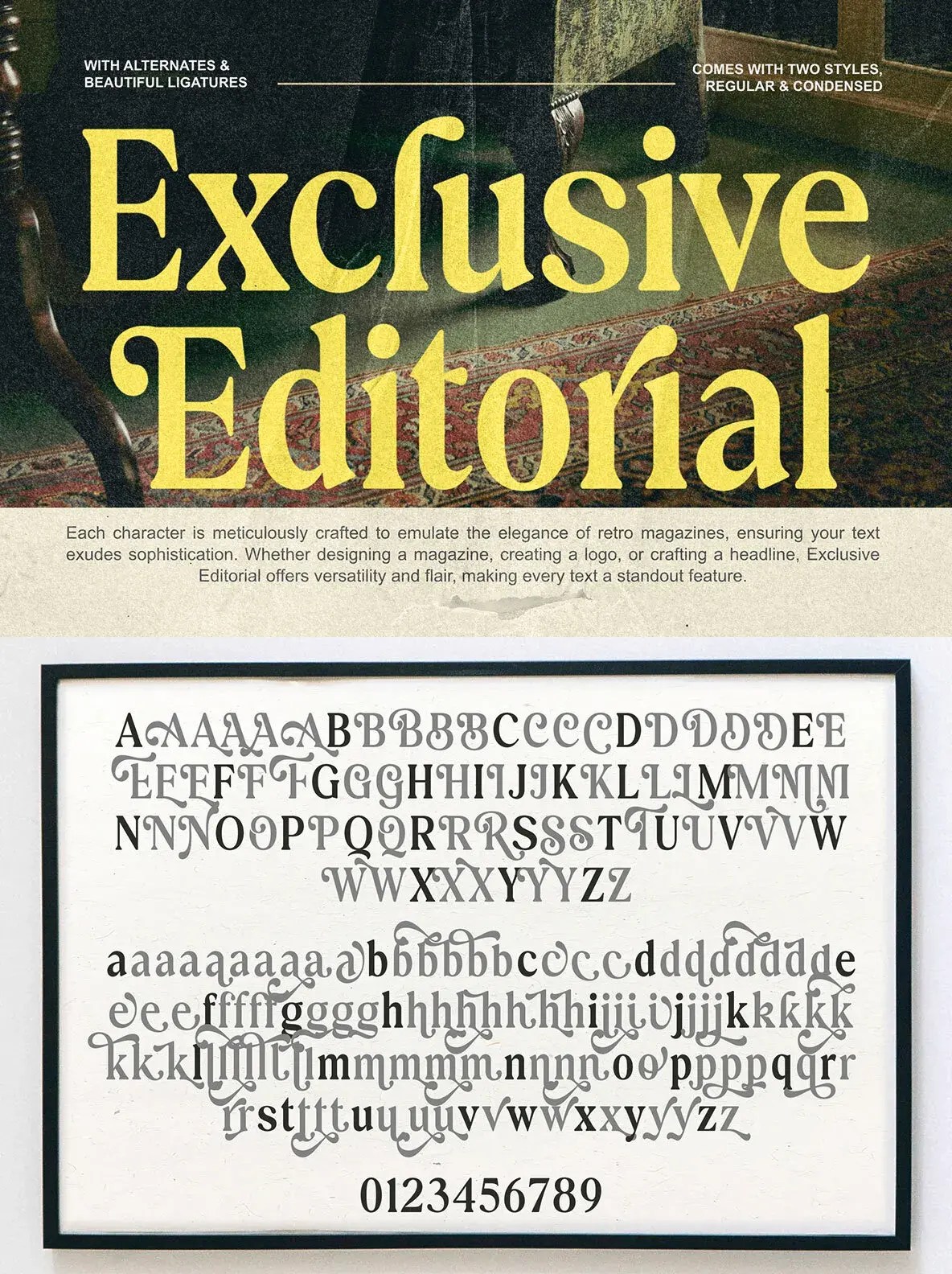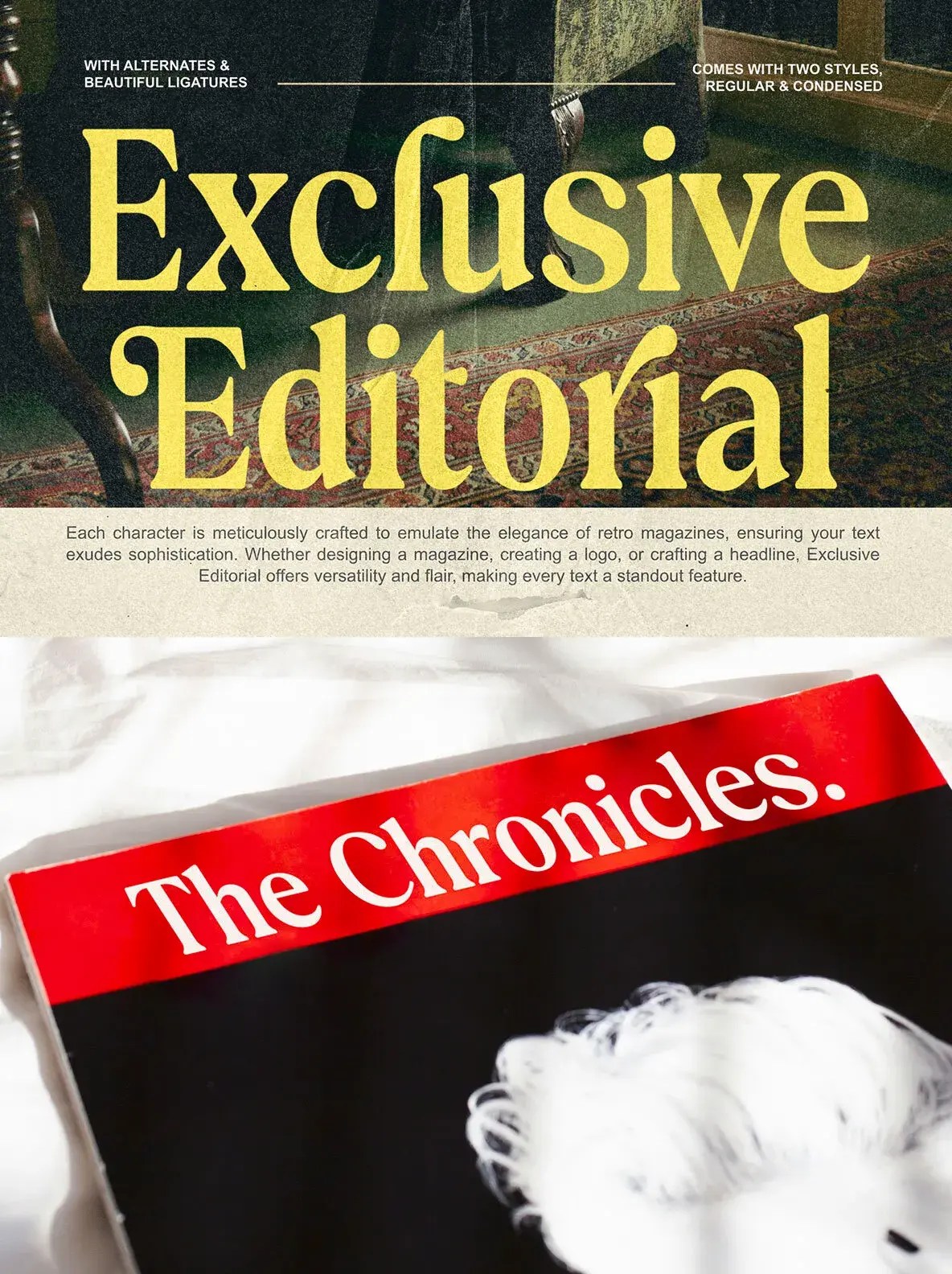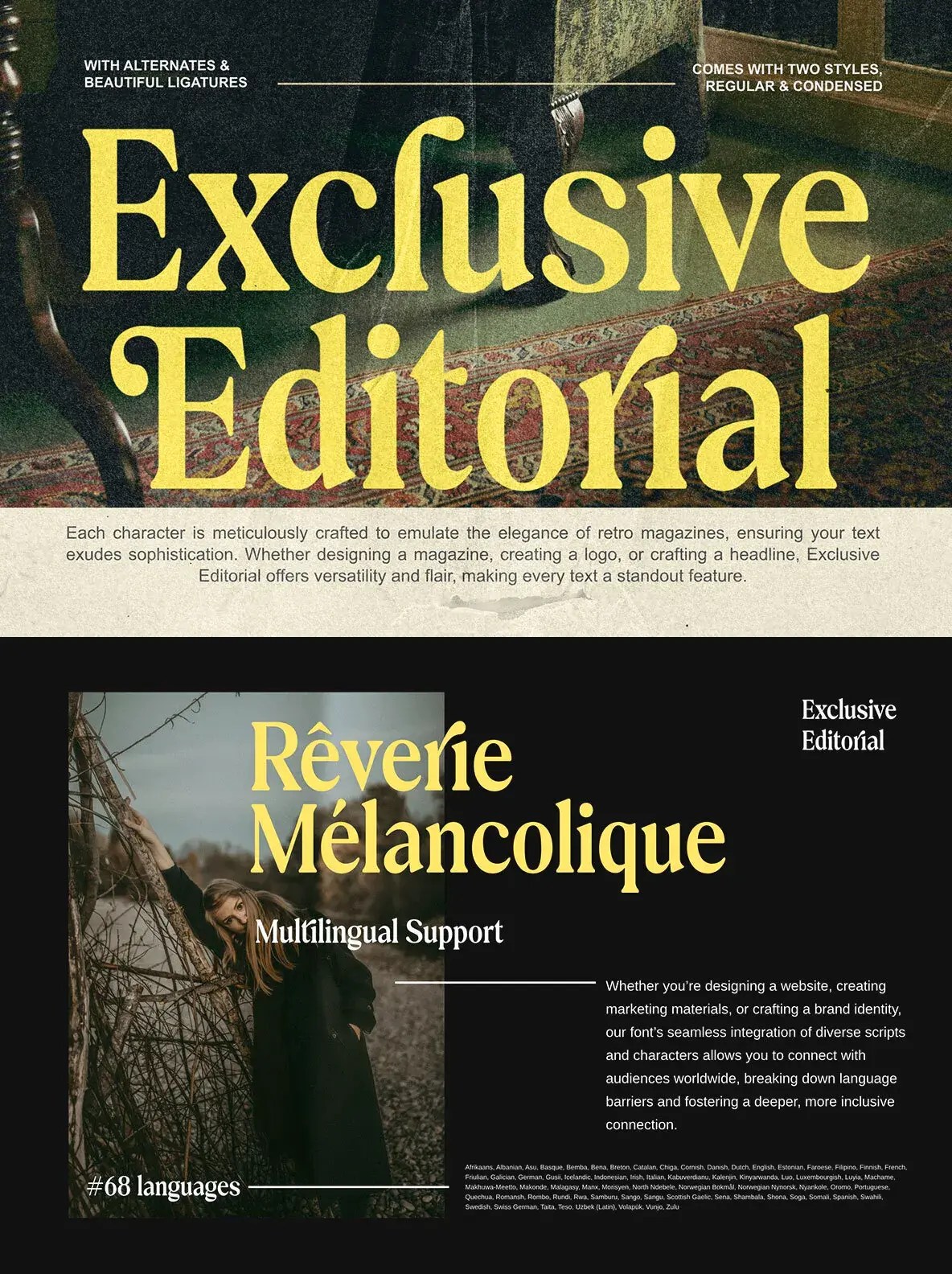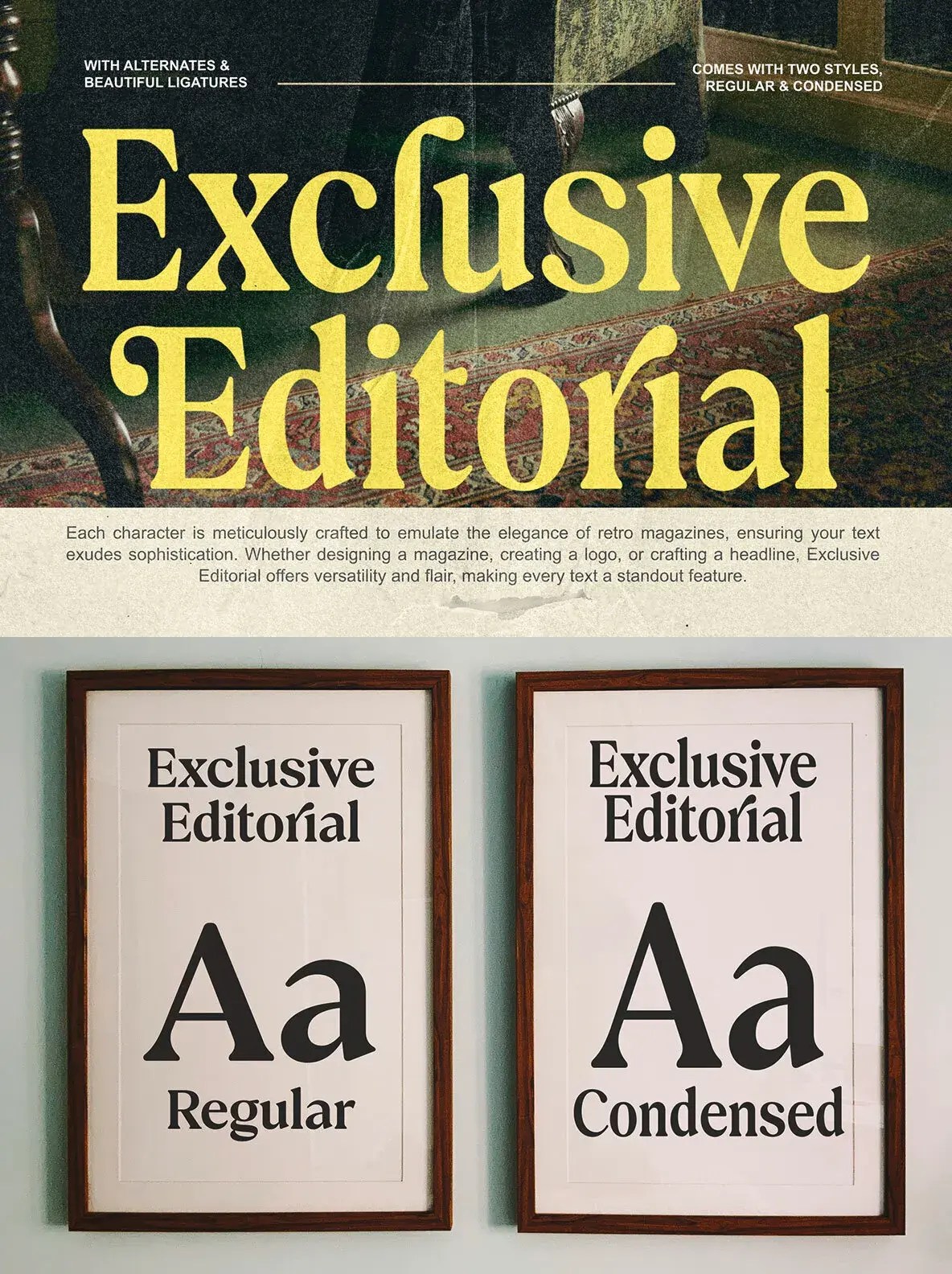
Exclusive Editorial Font
Step back into the 80s with Exclusive Editorial, a retro serif typeface
that adds flair to your designs. Perfect for pop and retro art themes. SKU